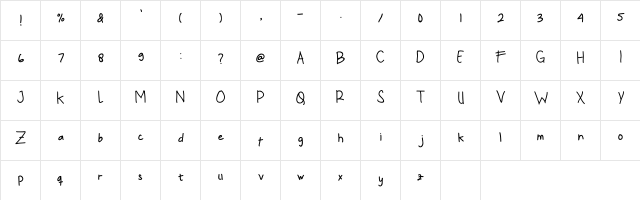
Glenn Before School Regular
Design Context for Glenn Before School Typeface
Glenn Before School is a composed and adaptable typeface that performs quietly and consistently across a wide range of design contexts.